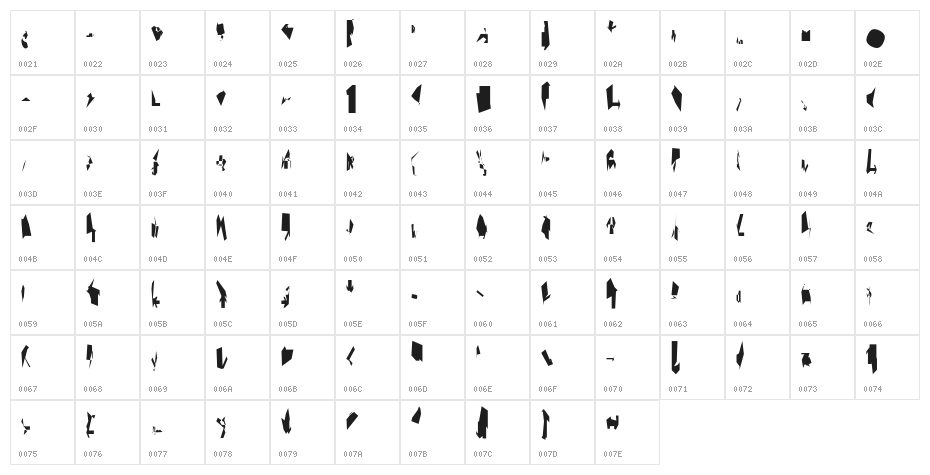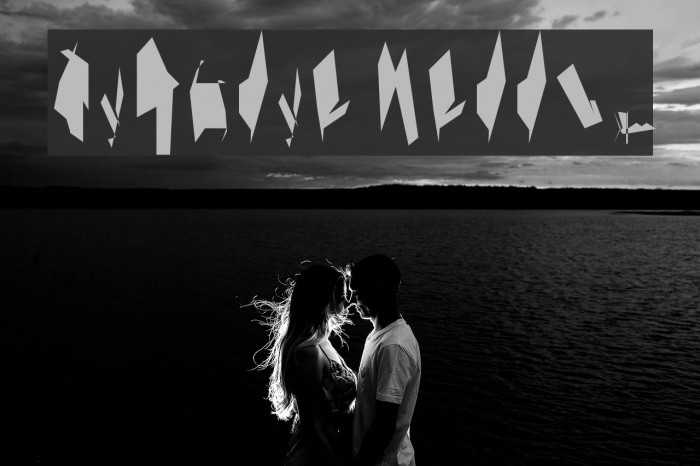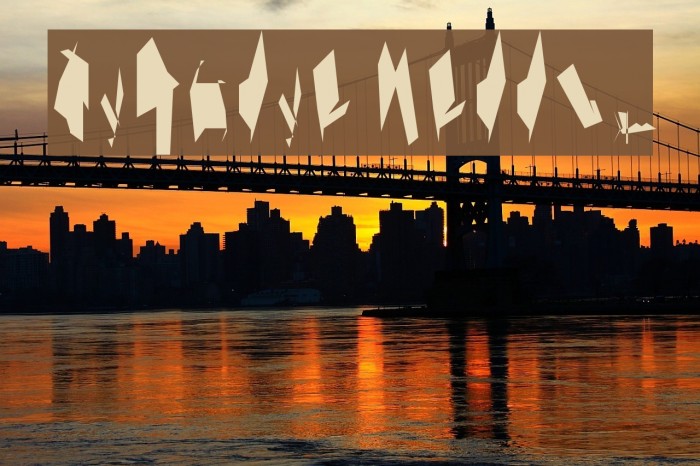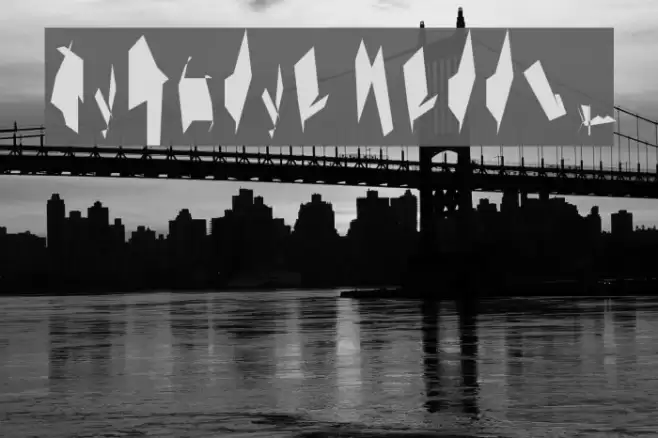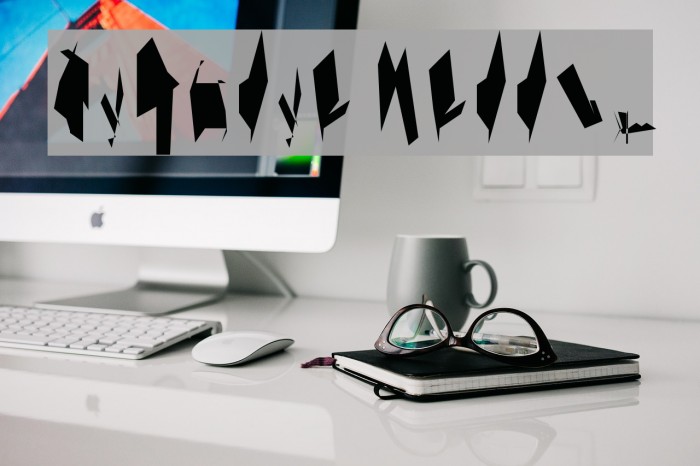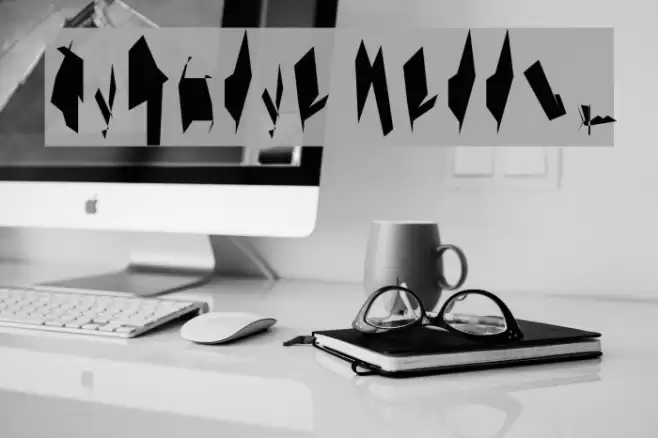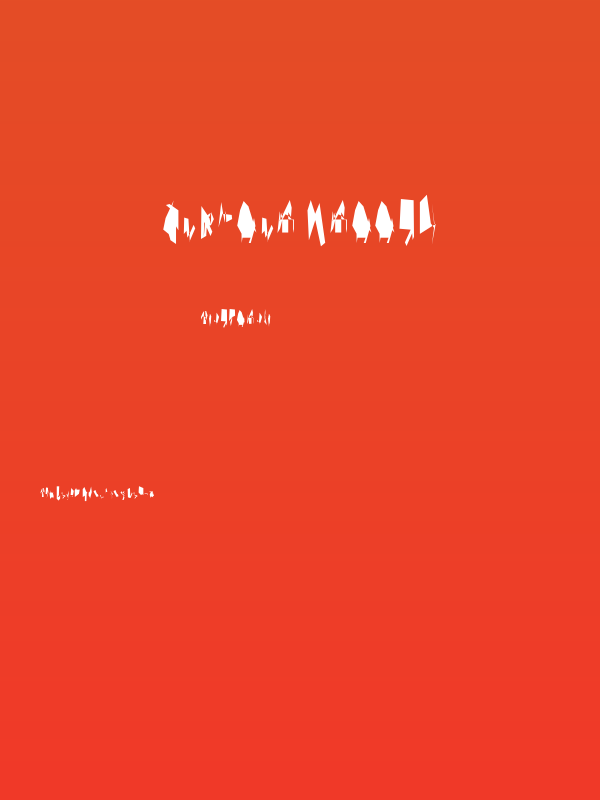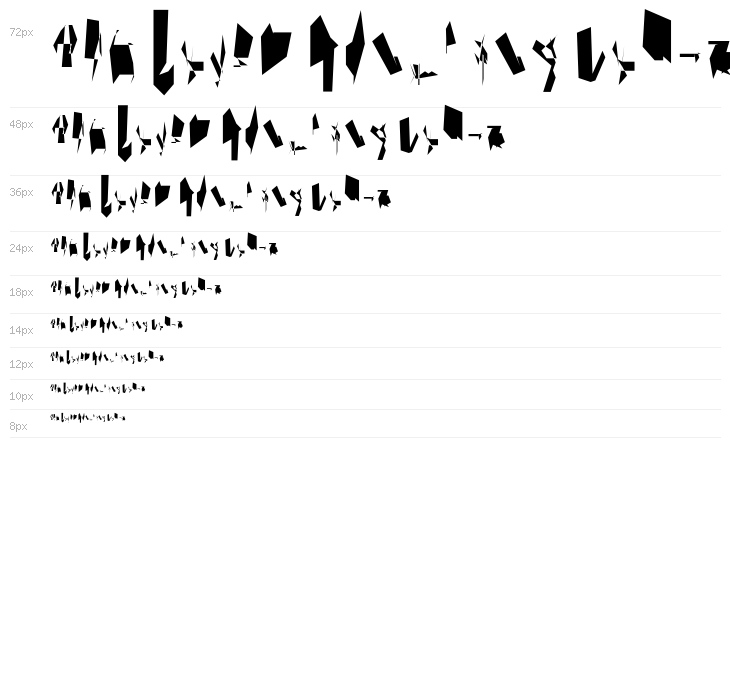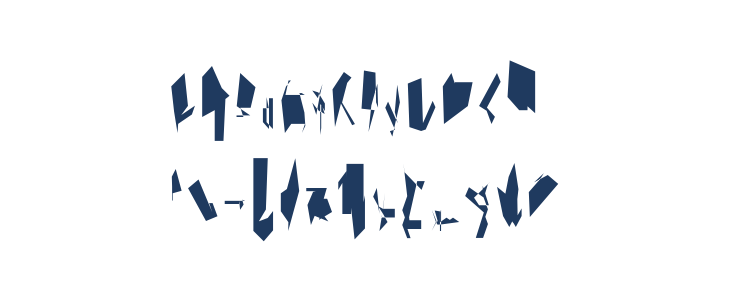
Siberia Narrow Font
Siberia Narrow Description
This font features an abstract and fragmented design, with each character appearing as if it has been shattered into sharp, angular pieces. The style is highly decorative and avant-garde, making it stand out with its unique, chaotic appearance. The characters are not easily readable at first glance, requiring a closer look to discern each letter and number. This font is best suited for artistic and experimental projects where conventional readability is not a priority. The overall aesthetic is bold and striking, with a modern, edgy vibe.
| Overall Style | Modern, Edgy, Avant-Garde |
| Use Case | Logos, Artistic projects, Experimental designs |
| Proposed Projects | Ideal for experimental art projects, edgy graphic designs, and unconventional branding. |